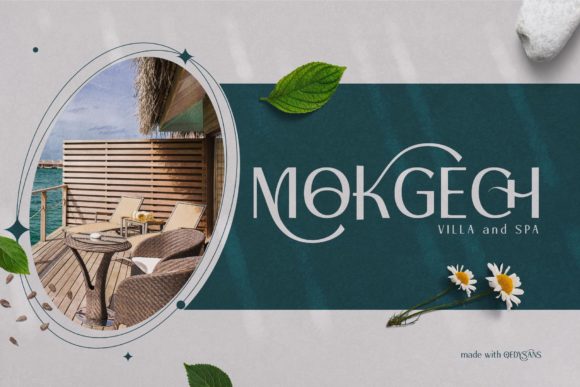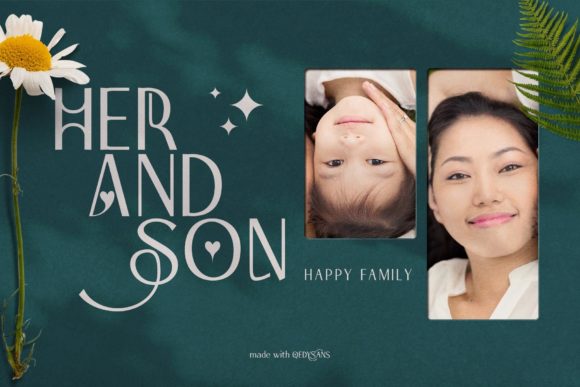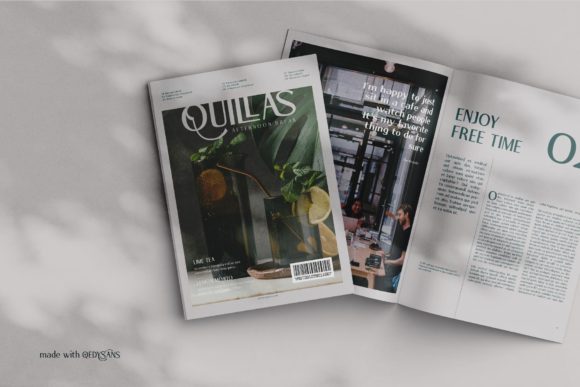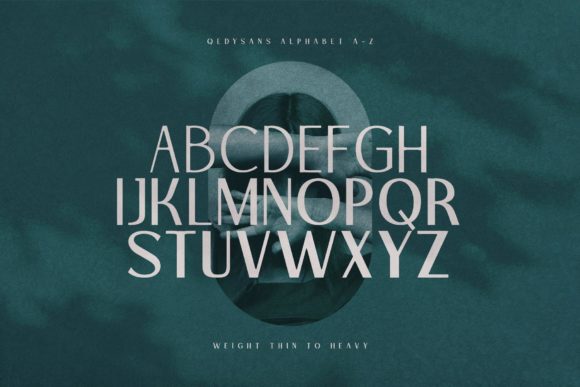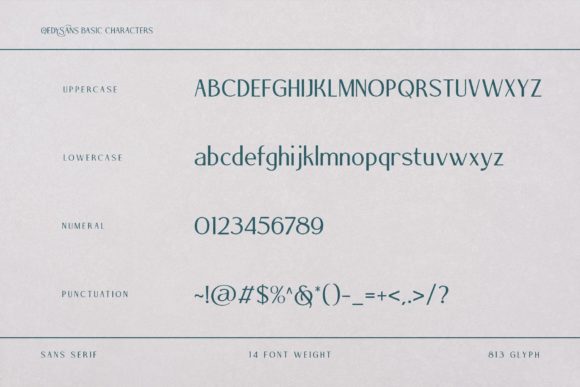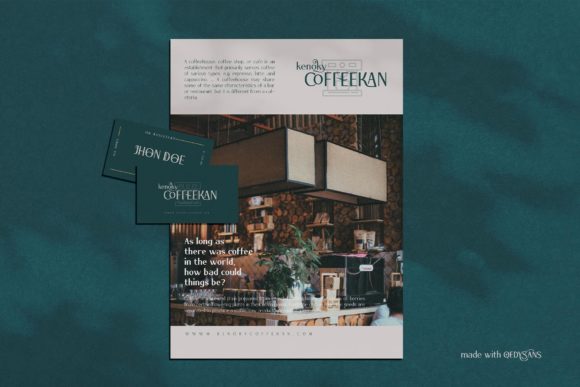
Introduction to Qedysans Font
Introducing QEDYSANS Typeface QEDYSANS is a sans serif font that has an elegant romantic concept.
It can be used for body text and header text Qedysans is suitable for design concepts that are elegant, simple, minimalist, and romantic.